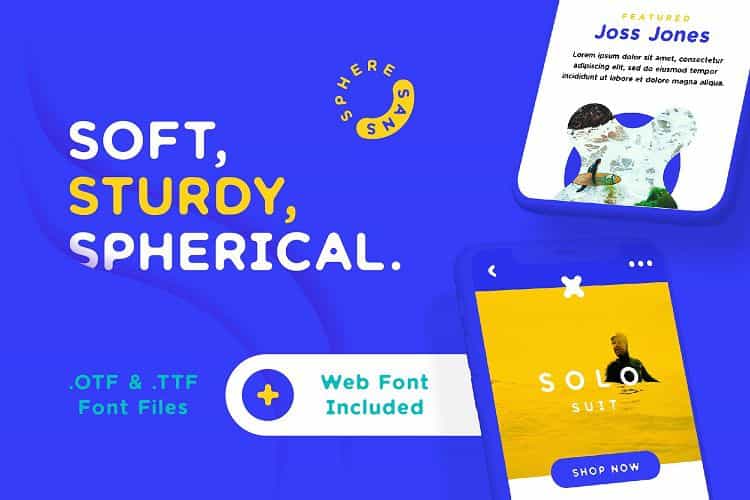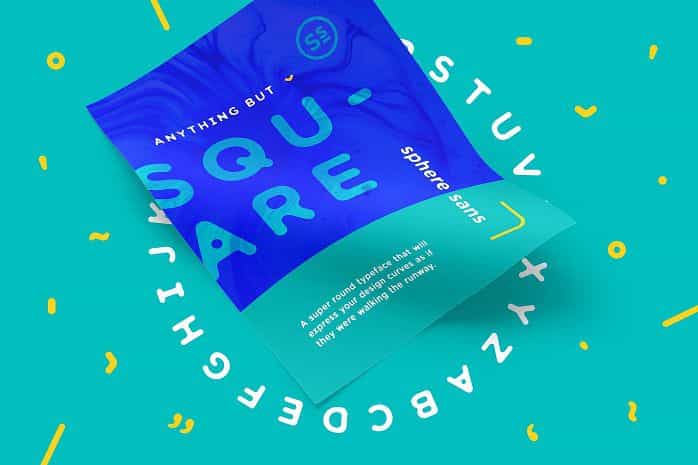
Introducing Sphere! It is created by Corey Moen, this font is a premium one and it can be found on creativemarket. However, today you can download it for free. Its a round, soft and solidly made font that was designed with the special attention.